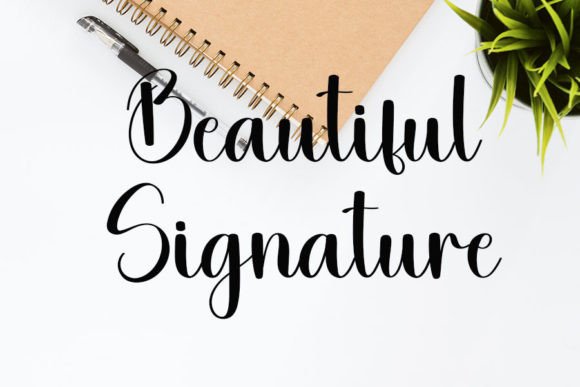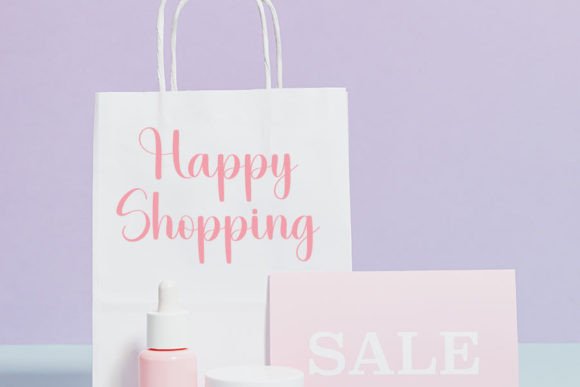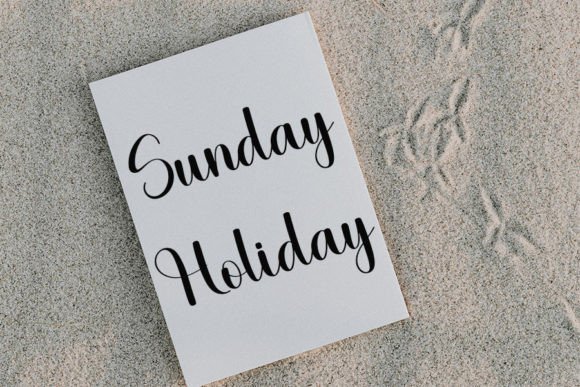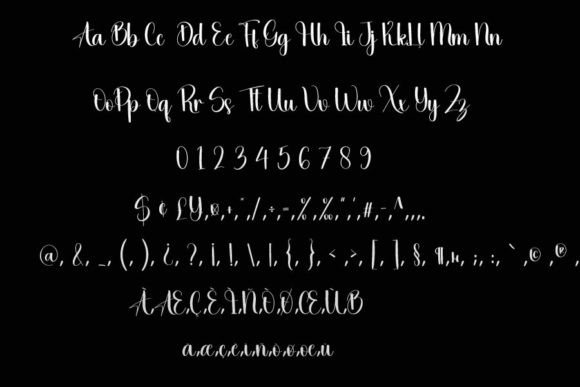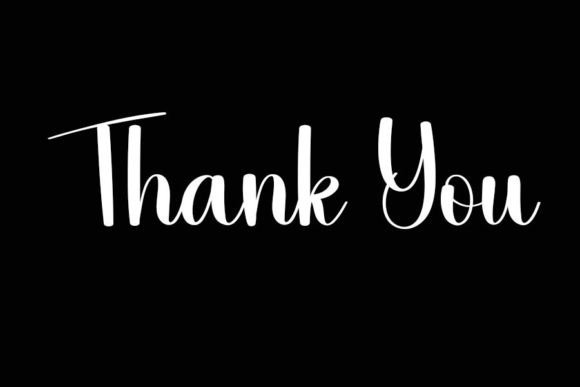
Optimistic Font
Optimistic Font Download – Fun Handwritten Script
The Optimistic Font download is a fun and friendly handwritten typeface created to bring warmth, personality, and charm to your projects. With its playful curves and natural flow, this font makes every design feel approachable and engaging. Whether you’re designing greeting cards, presentations, or digital artwork, Optimistic adds creativity and positivity to your work.
A Fun and Approachable Handwritten Style
The Optimistic Font download combines casual strokes with a stylish handwritten look. Its cheerful design ensures that your text feels inviting, while its balanced structure keeps it clear and easy to read. This makes it perfect for projects that need both character and legibility.
Perfect for Crafts and DIY Projects
Crafters and hobbyists will love the Optimistic Font download for planners, stickers, handmade cards, and scrapbooks. Its approachable handwritten charm adds authenticity to every design while keeping a professional finish. It is especially effective in projects that need a joyful and personal touch.
Great for Digital Designs and Presentations
The Optimistic Font download also shines in digital applications. From social media graphics to blog headers and professional presentations, its casual yet stylish strokes make your message more engaging. This font adapts beautifully across different platforms, ensuring versatile use.
Readability with Personality
Some handwritten fonts sacrifice readability for style, but the Optimistic Font download avoids this problem. Its neat structure keeps text clear while still delivering a unique handwritten character. This makes it dependable for both bold titles and smaller text elements.
Why Choose Optimistic Font?
Among the many handwritten fonts available, the Optimistic Font download stands out for its playful elegance, clear readability, and versatile usability. It is suitable for both casual and professional projects, offering flexibility and creativity in one typeface.
Add Positivity to Your Designs
Typography shapes the way your audience feels about your work. With the Optimistic Font download, you can add positivity, friendliness, and creativity to your projects. Whether for crafts, invitations, or digital content, this font ensures your designs shine with warmth and personality.